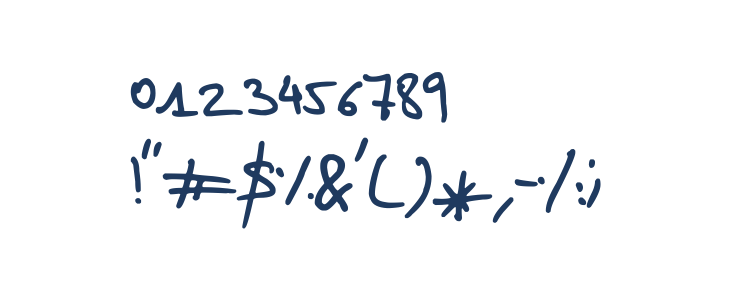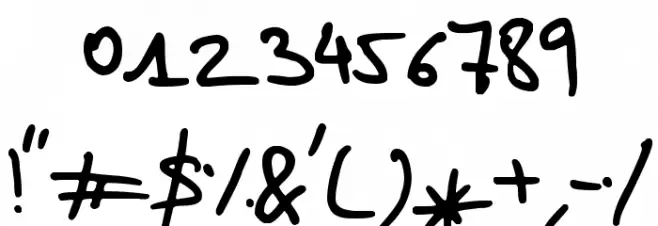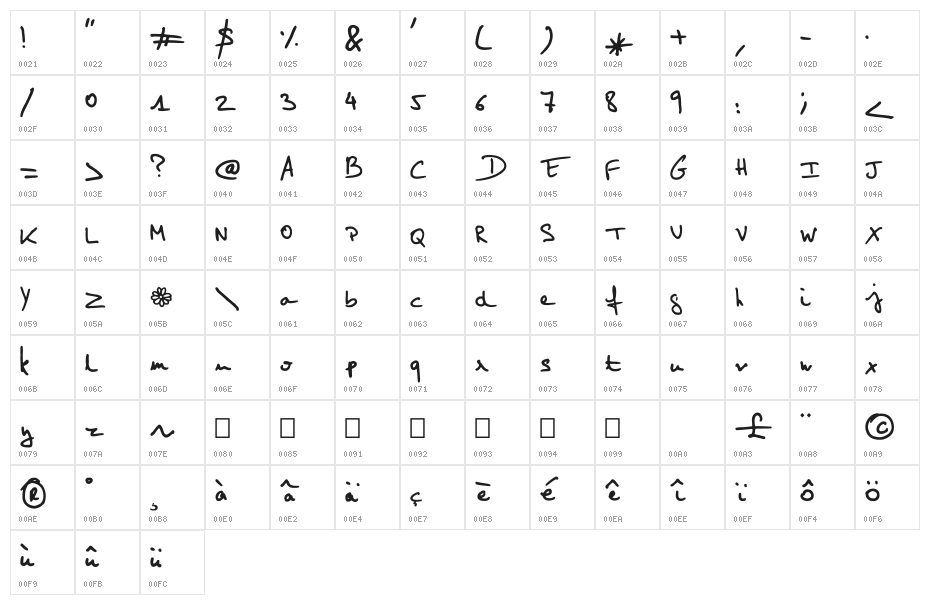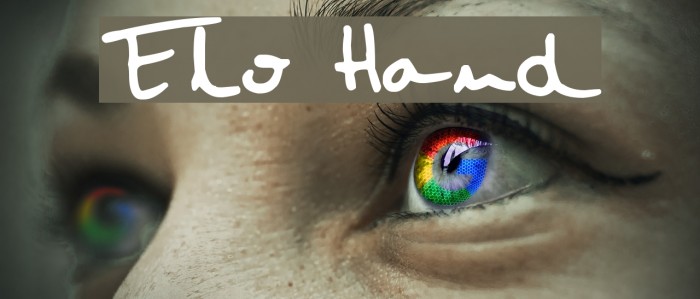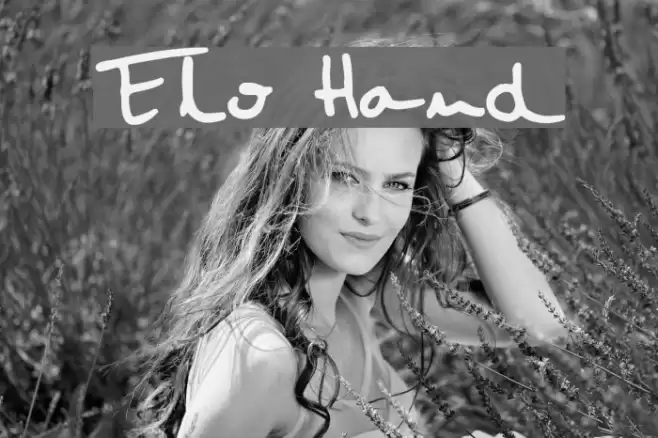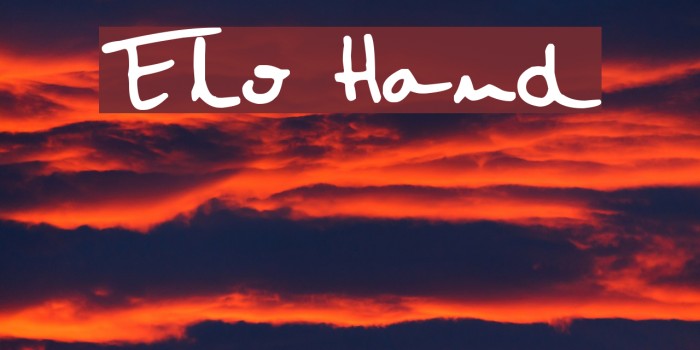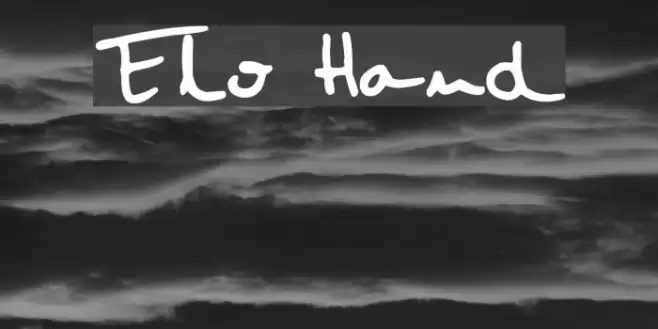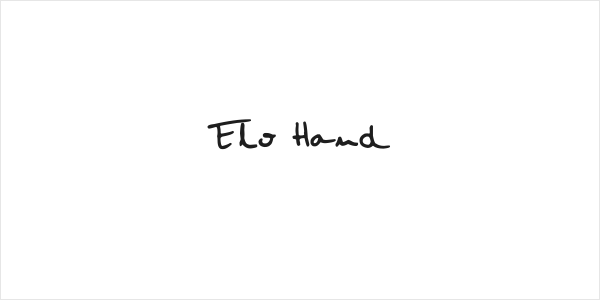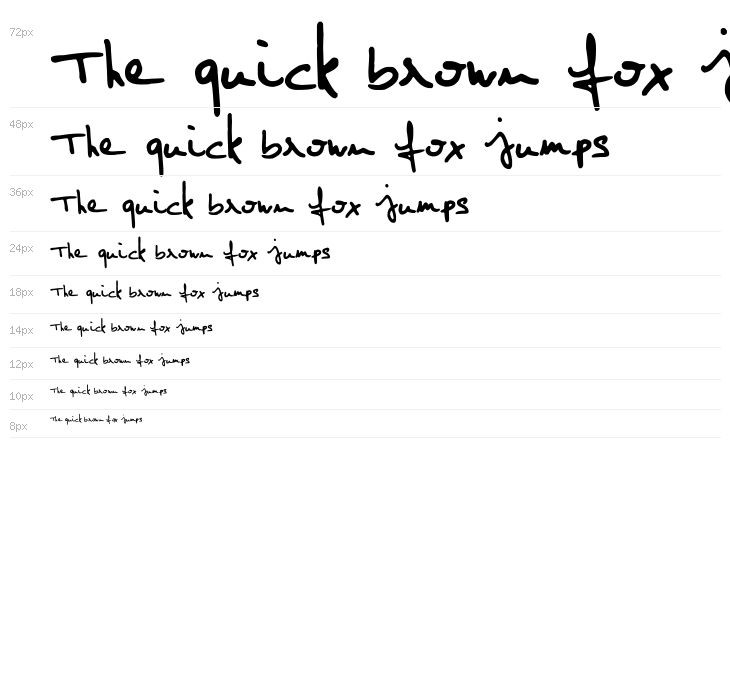
Elo Hand Font
Elo Hand Description
This font features a casual, handwritten style that mimics the natural flow of pen on paper. The uppercase letters are bold and slightly irregular, giving them a playful and informal appearance. Lowercase letters maintain a consistent flow, with some characters like 'e' and 'g' having distinctive loops. The numbers are clear and legible, with a slight tilt that adds to the handwritten feel. Special characters are well-integrated, maintaining the overall aesthetic. The font's organic and relaxed style makes it ideal for projects that require a personal touch.
| Overall Style | Casual, Informal |
| Proposed Projects | Ideal for greeting cards, personal notes, informal invitations, and creative projects that benefit from a personal touch. |